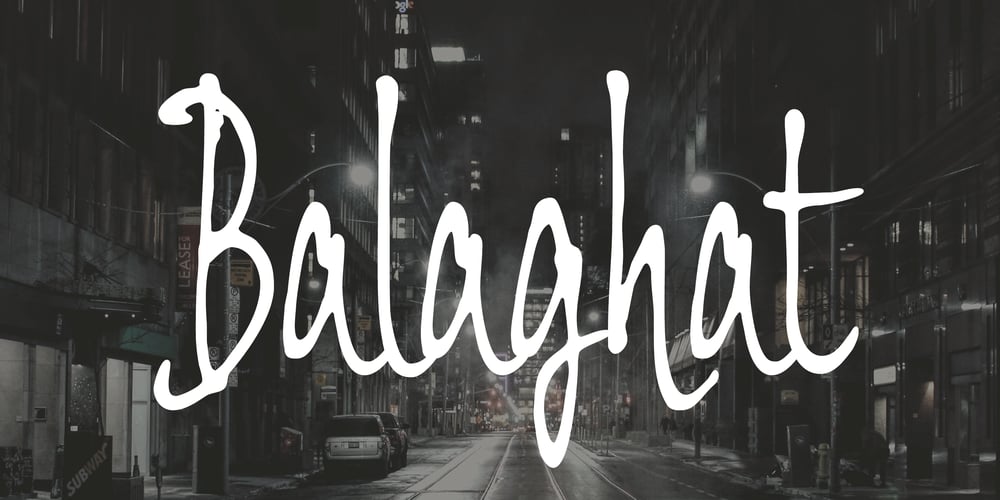
Balaghat Font Family was designed by Ryoichi Tsunekawa and published by Dharma Type. Balaghat contains 1 styles and family package options. Balaghat is a decorative but natural hand letter script. The distinctive feature of this font is its cursive shape and It’s like written with a brush with smooth strokes. We recommend this font for high-end logotypes and magazine headlines, let alone greeting cards, invitations, posters, book covers, ads and the various web and screen usages.